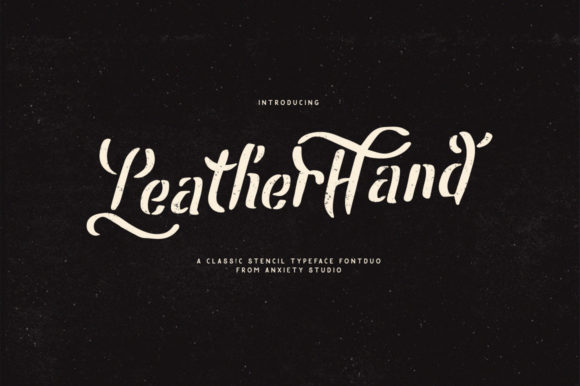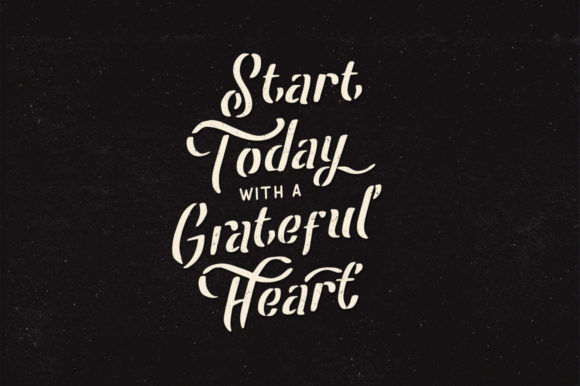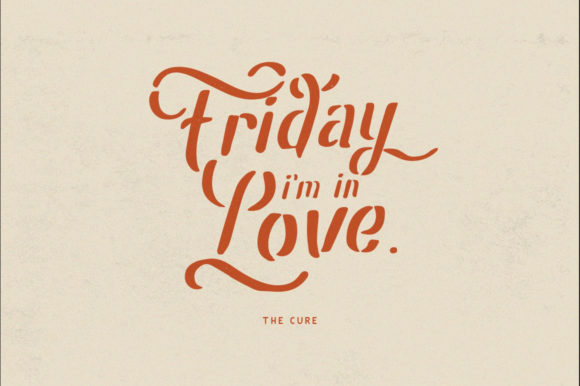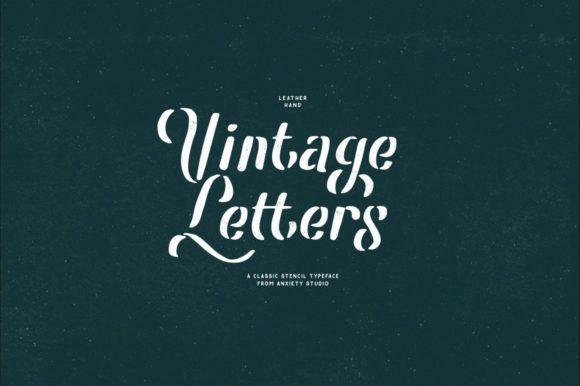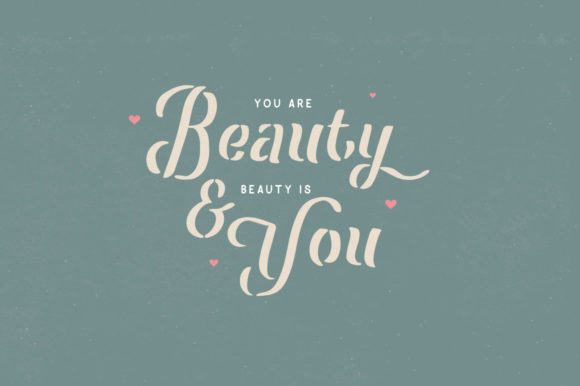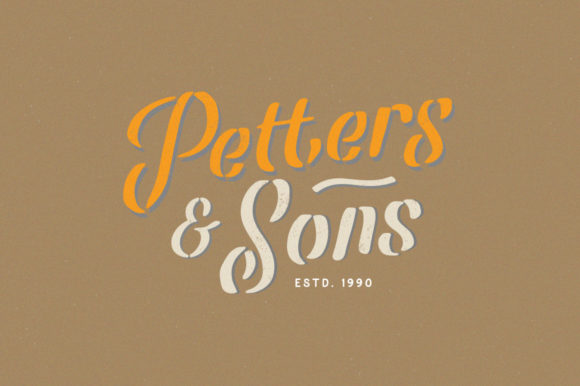
Introduction to Leatherhand Font
This gorgeous font duo consists of two unique fonts, Leatherhand and Marotho.
Both fonts merge a variety of references, ranging from vintage and classic to art deco and the modern era Combine these two fonts and achieve eye-catching results.